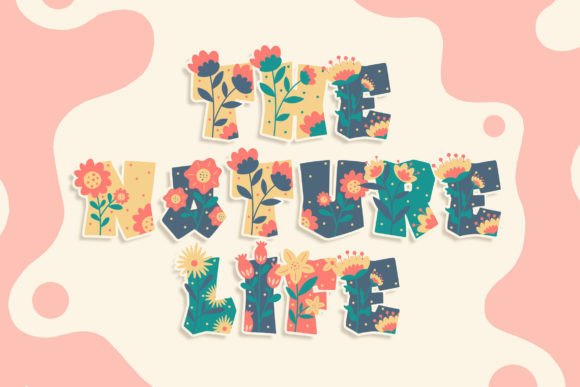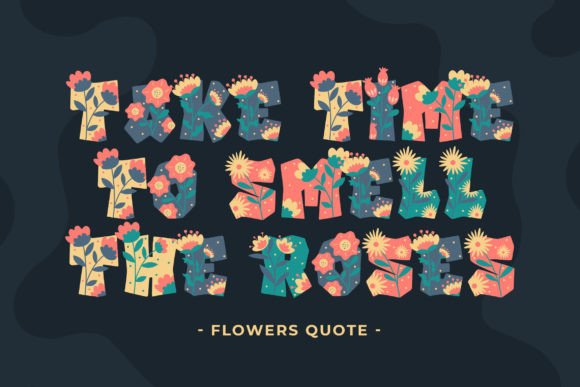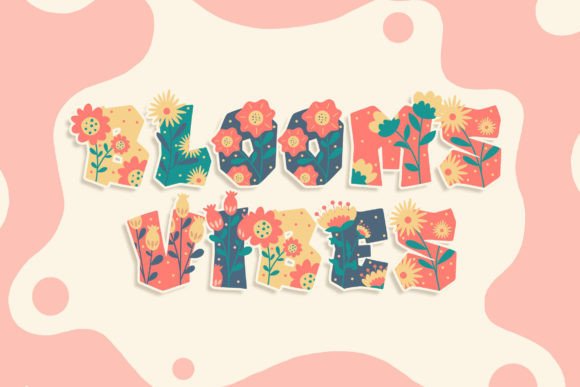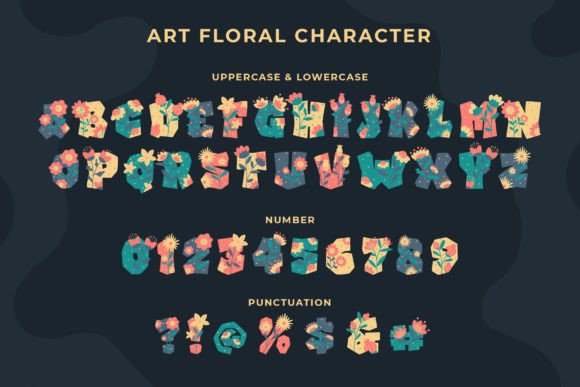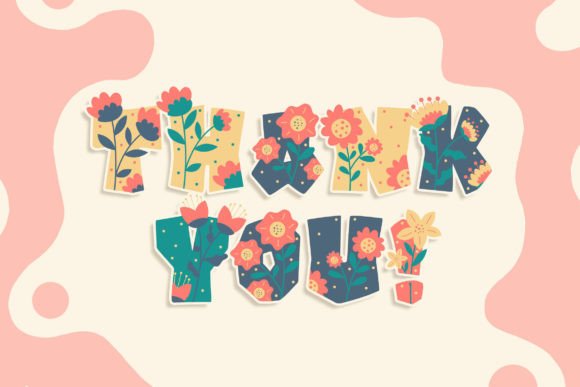
Introducing Art Flora Font: The Ultimate Playful Typography for Creative Designs
Are you searching for a unique and inspiring font to elevate your designs? Look no further! We are excited to introduce the Art Flora Font, a stunning Flowers SVG Color Font that embodies playful typography. This font is perfect for designers and crafters who want to add a touch of creativity, imagination, and fun to their projects.
What is Art Flora Font?
Art Flora Font is a carefully crafted, OpenType-SVG color font that combines the beauty of flowers with the playfulness of typography. This font is designed to make your designs more attractive and engaging, making it ideal for a wide range of applications, including book covers, posters, packaging, merchandise, logotypes, and more.
Key Features of Art Flora Font
- Playful and Creative: Art Flora Font is designed to inspire creativity and imagination. Its playful and whimsical design makes it perfect for projects that require a touch of fun and personality.
- Highly Aesthetic: This font is crafted with a high level of aesthetics, ensuring that your designs look professional and visually appealing.
- SVG Color Font: Art Flora Font is an OpenType-SVG color font, which means it can be used in compatible software such as PhotoShop, Illustrator, Silhouette, and Inkscape.
- Wide Range of Applications: This font is versatile and can be used for various design projects, including book covers, posters, packaging, merchandise, logotypes, and more.
Art Flora Font offers numerous benefits for designers and crafters, including:
- Time-Saving: With Art Flora Font, you can create stunning designs quickly and efficiently.
- Unique Designs: This font allows you to create unique and personalized designs that stand out from the crowd.
- Professional Results: Art Flora Font is designed to produce professional-looking results, making it perfect for commercial and personal projects.
To get the most out of Art Flora Font, here are some tips and inspiration:
- Experiment with Colors: Take advantage of the color font feature to create stunning and vibrant designs.
- Mix and Match: Combine Art Flora Font with other fonts and design elements to create unique and interesting compositions.
- Play with Typography: Use the font’s playful design to create eye-catching typography and text arrangements.
Art Flora Font is an exceptional design tool that offers a unique combination of playfulness, creativity, and professionalism. With its highly aesthetic design, compatibility with popular software, and ease of use, this font is perfect for designers and crafters who want to elevate their designs and create something truly special.